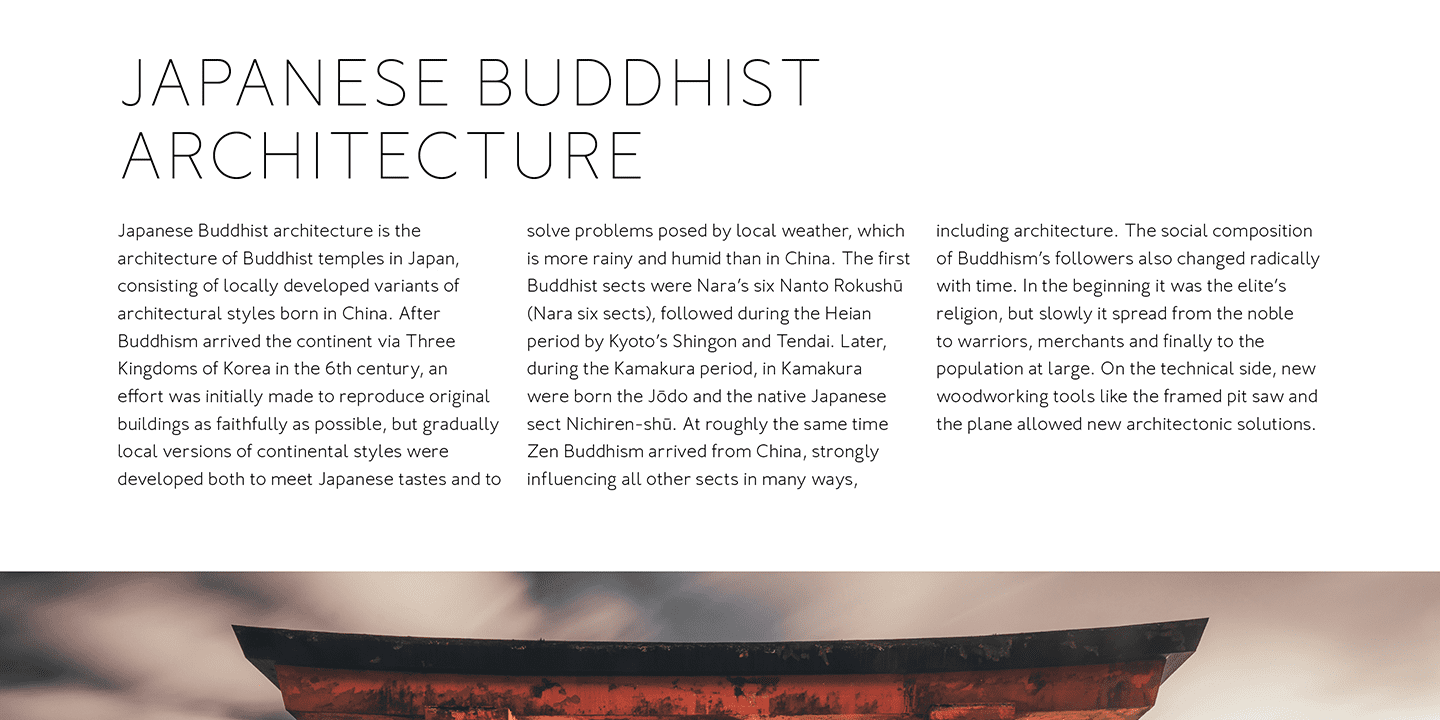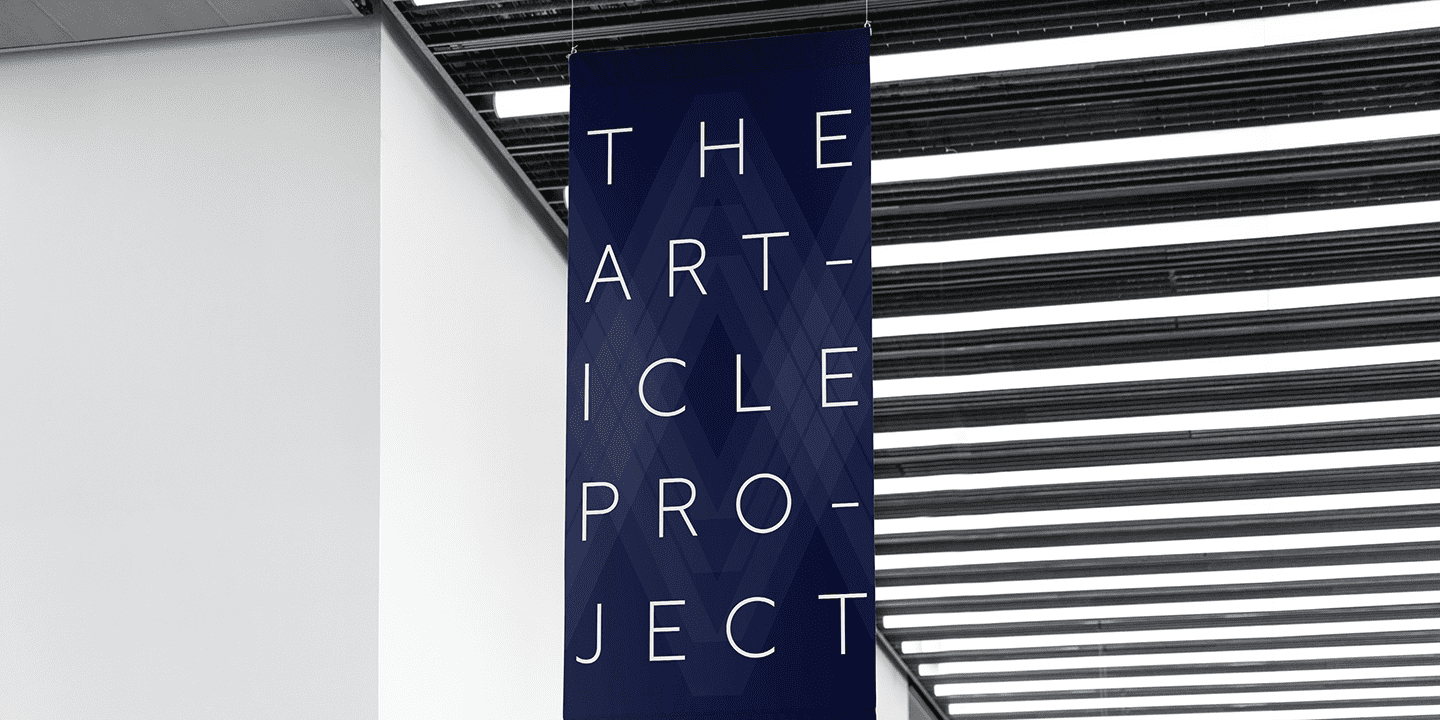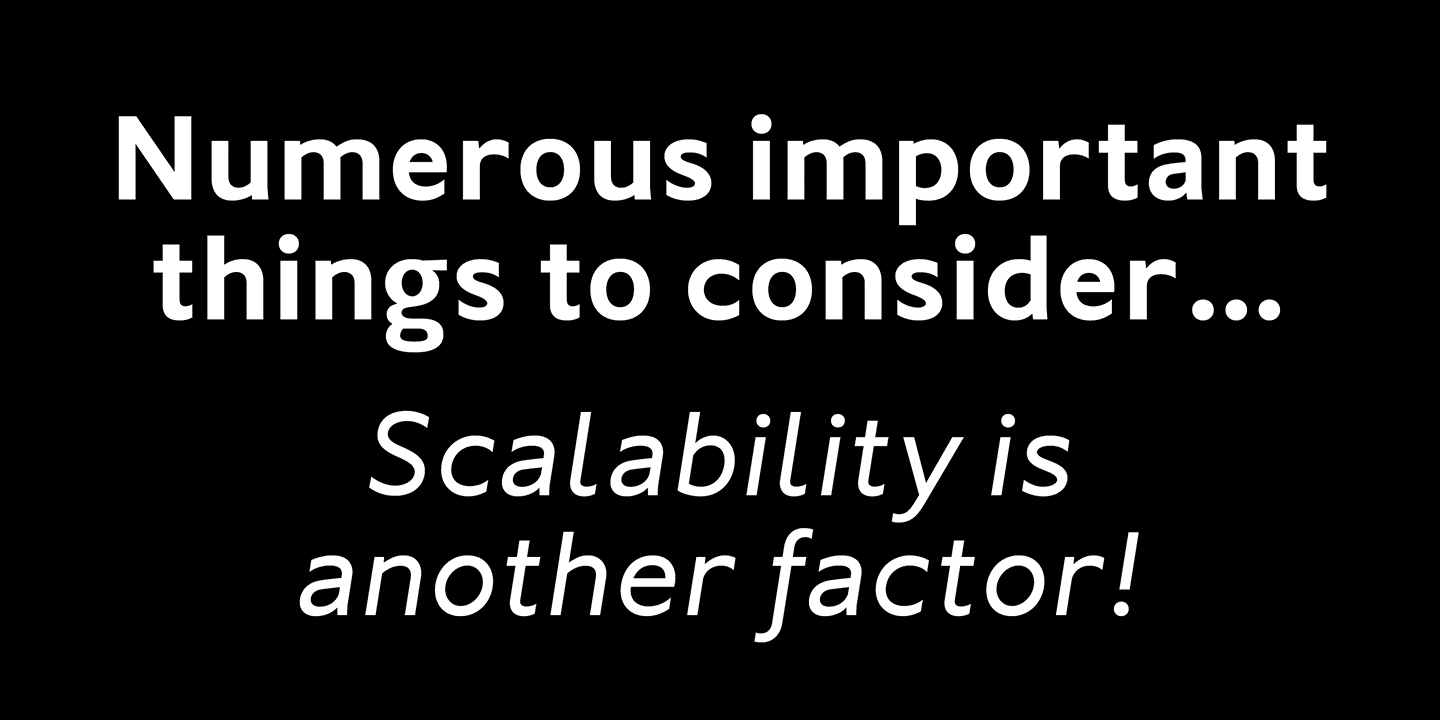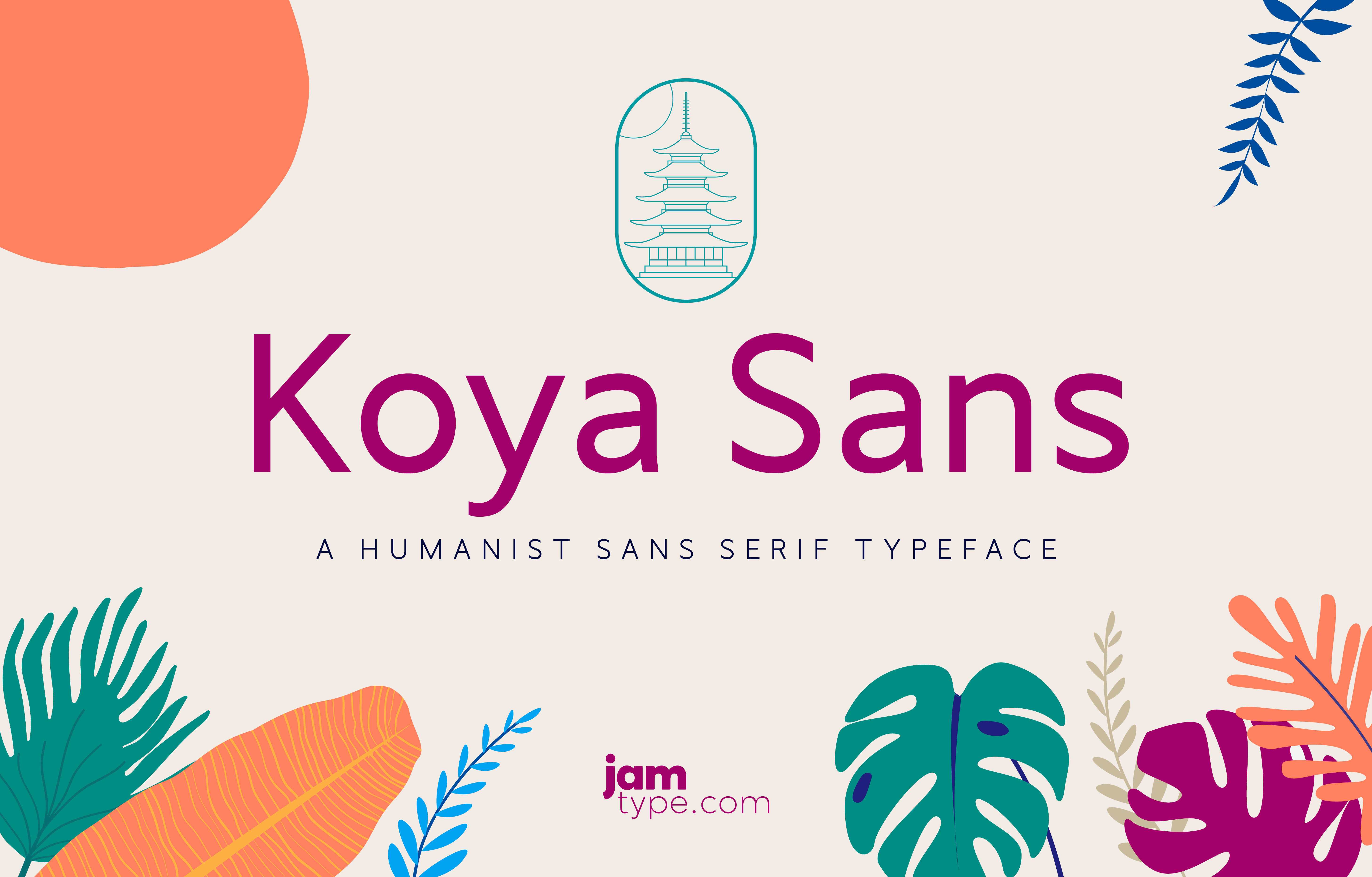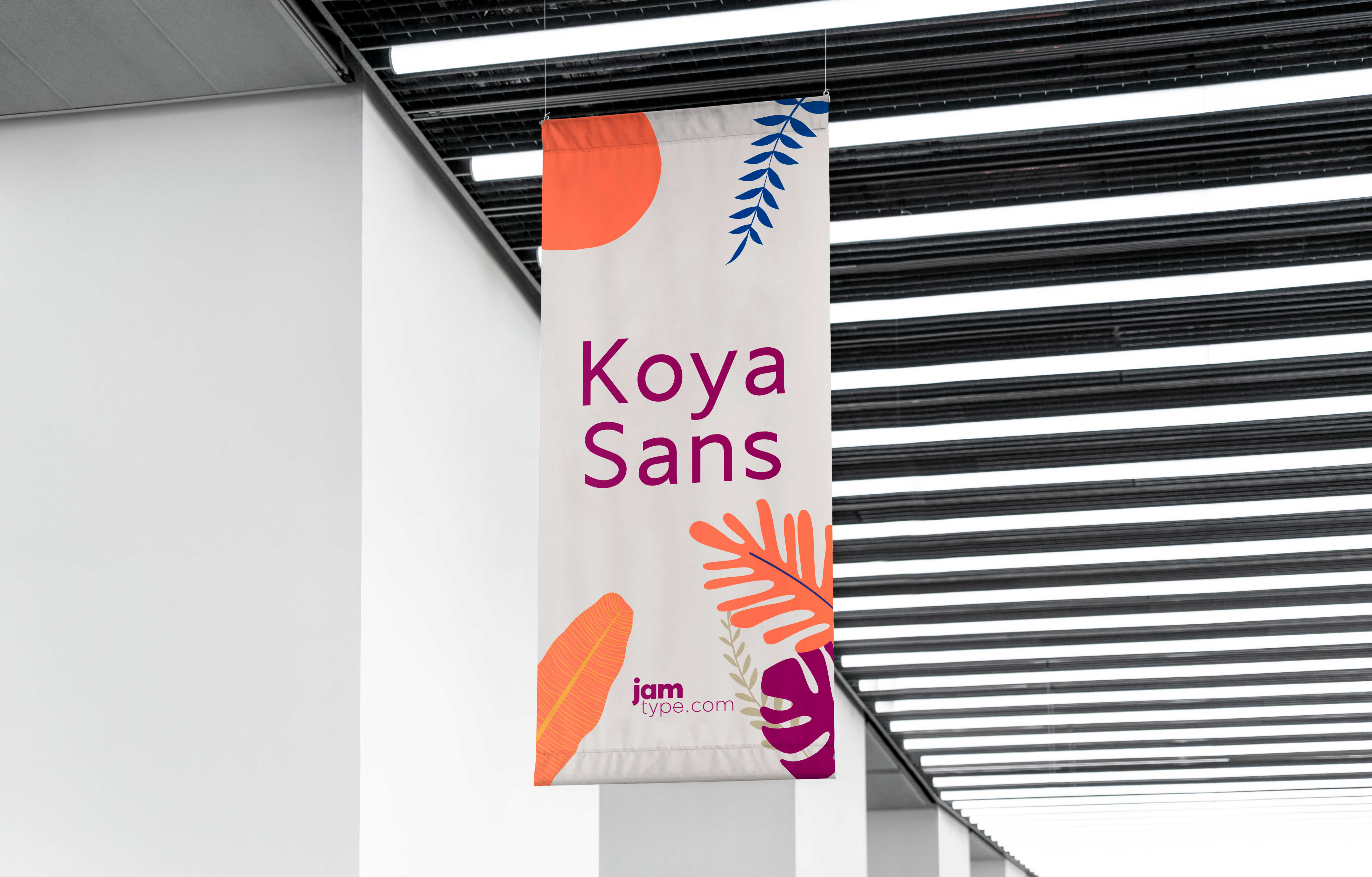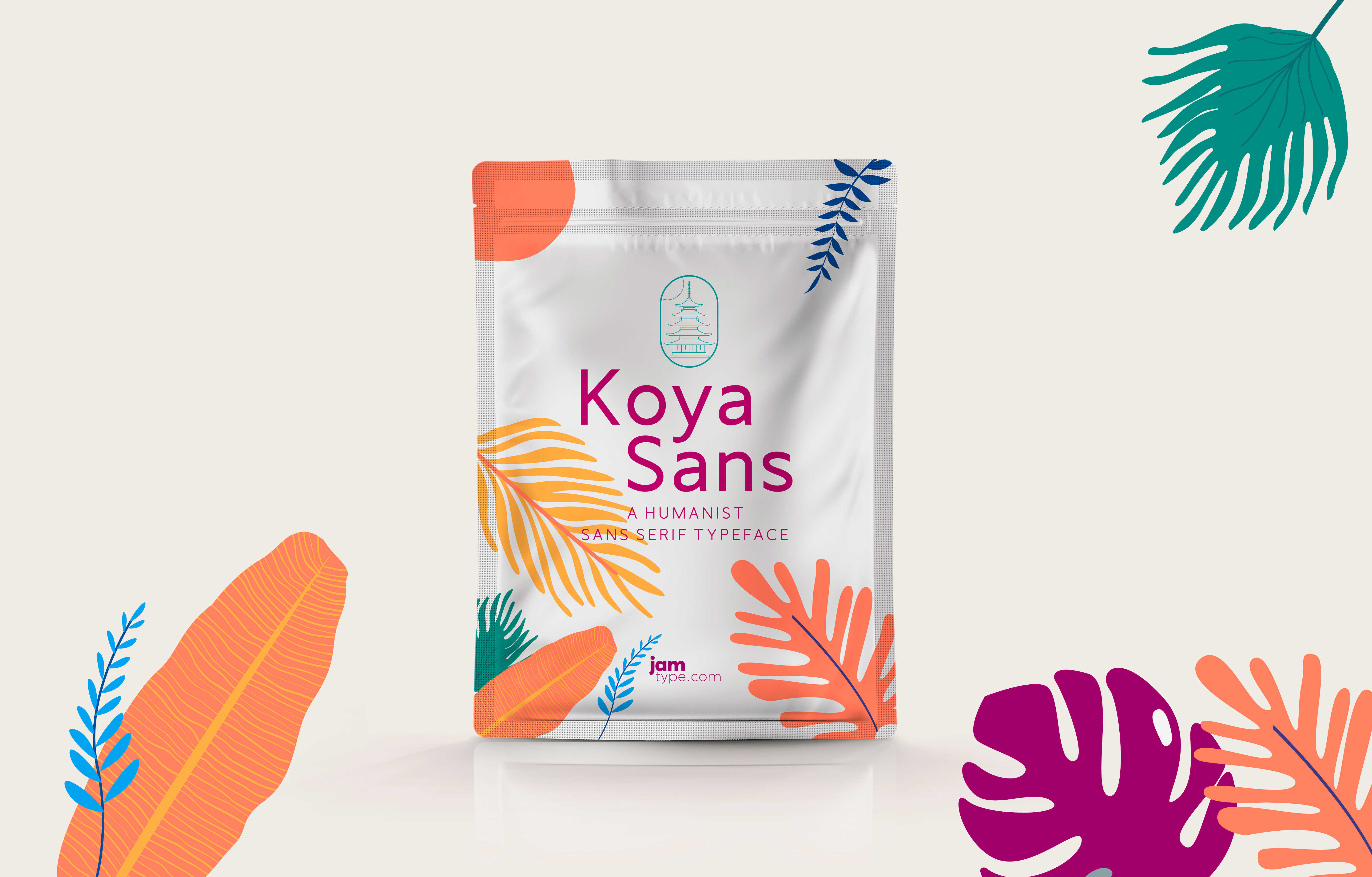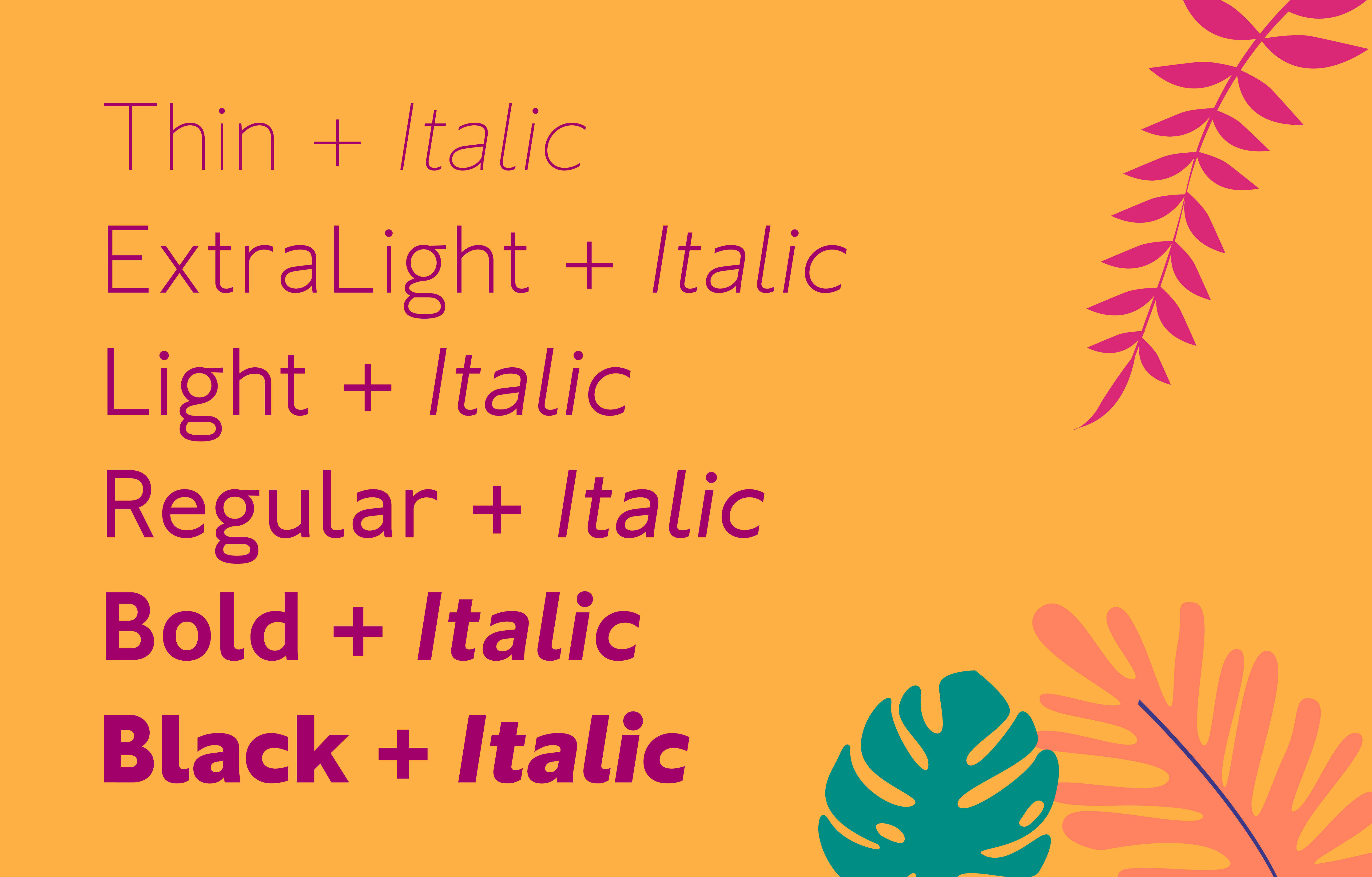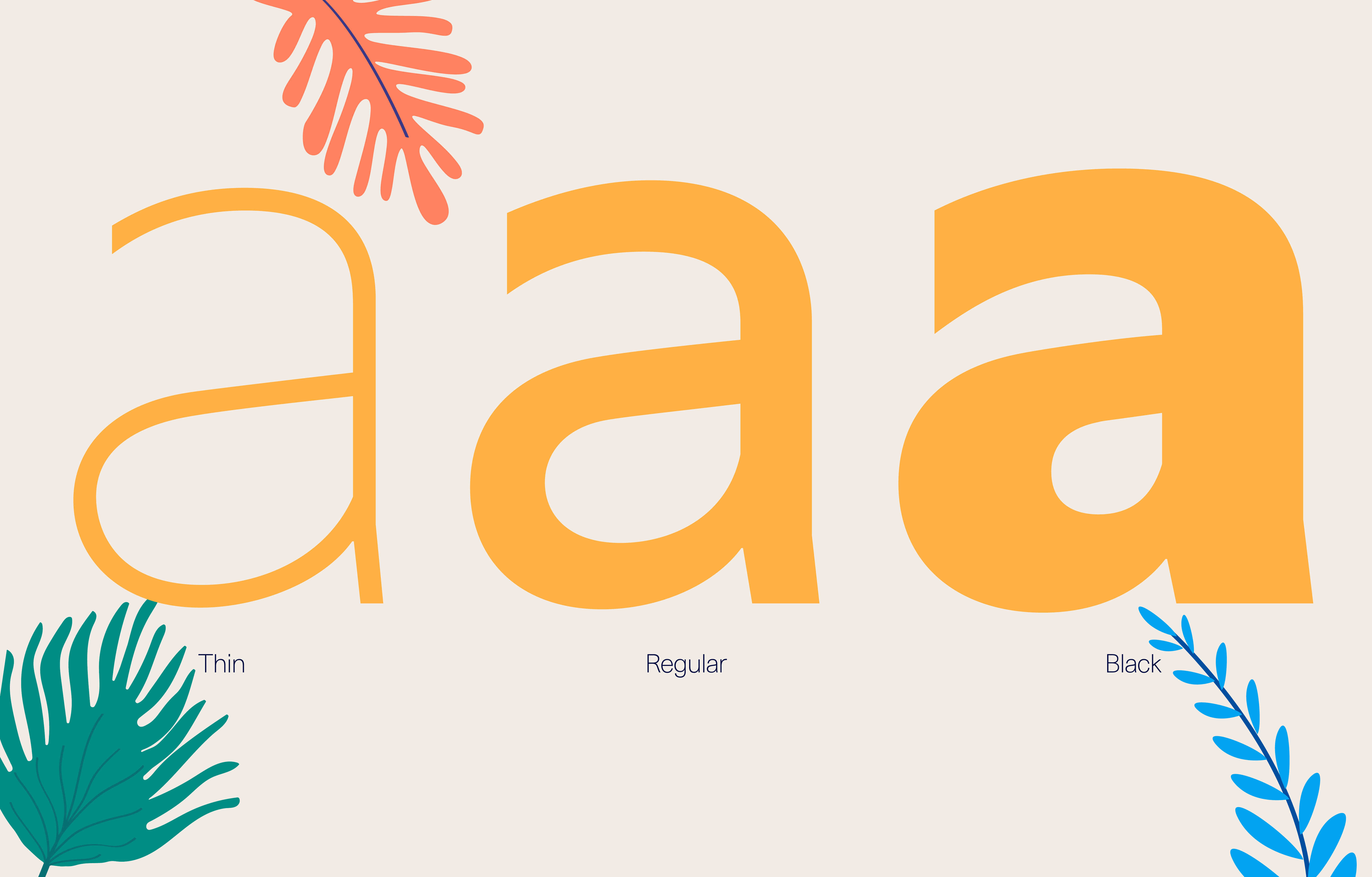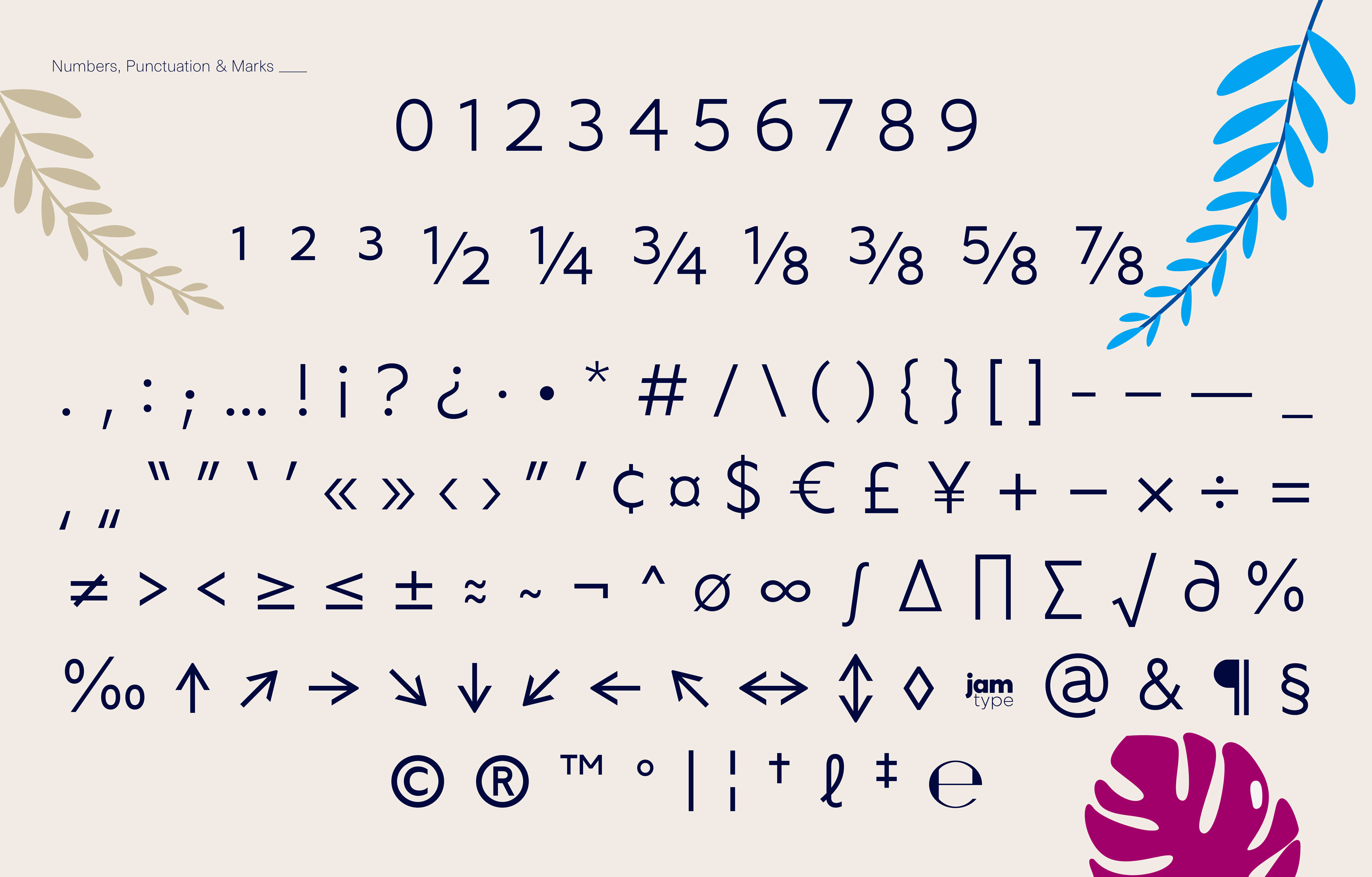
Koya Sans Family (12 fonts)
From JAMType
Inspired by a trip to the Buddhist temple of K?yasan south of Osaka, Japan, this carefully crafted sans serif typeface with its sharp terminals loosely emulates the sharp corners of the temple’s pagoda roof.